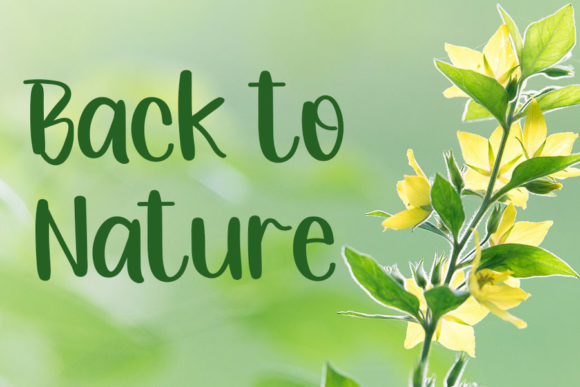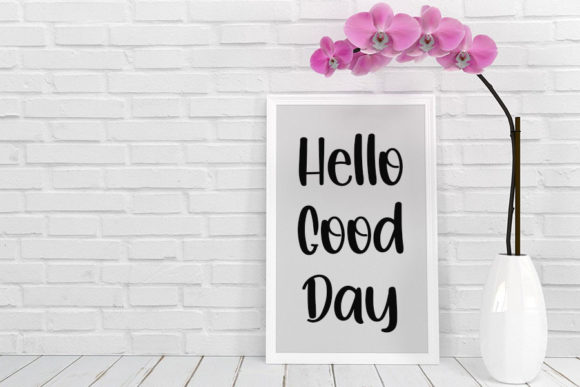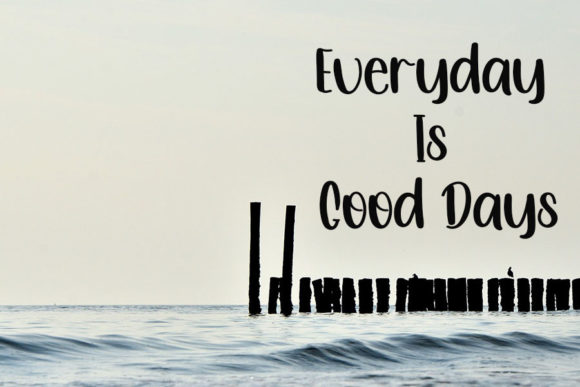
Introduction to Naturalist Font
Naturalist is a beautiful and refined script font.
It has a classy, elegant and modern look that can be used for logos, branding, invitations, stationery, wedding designs, social media posts, and much more .